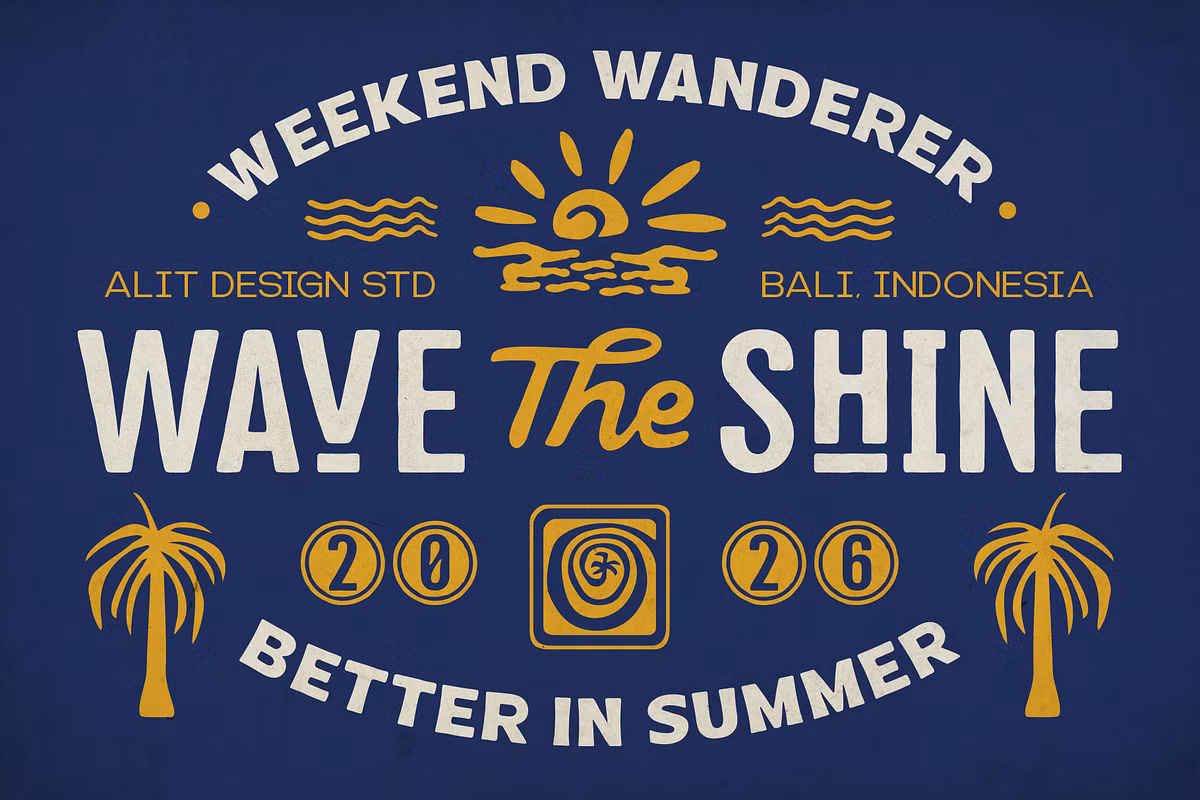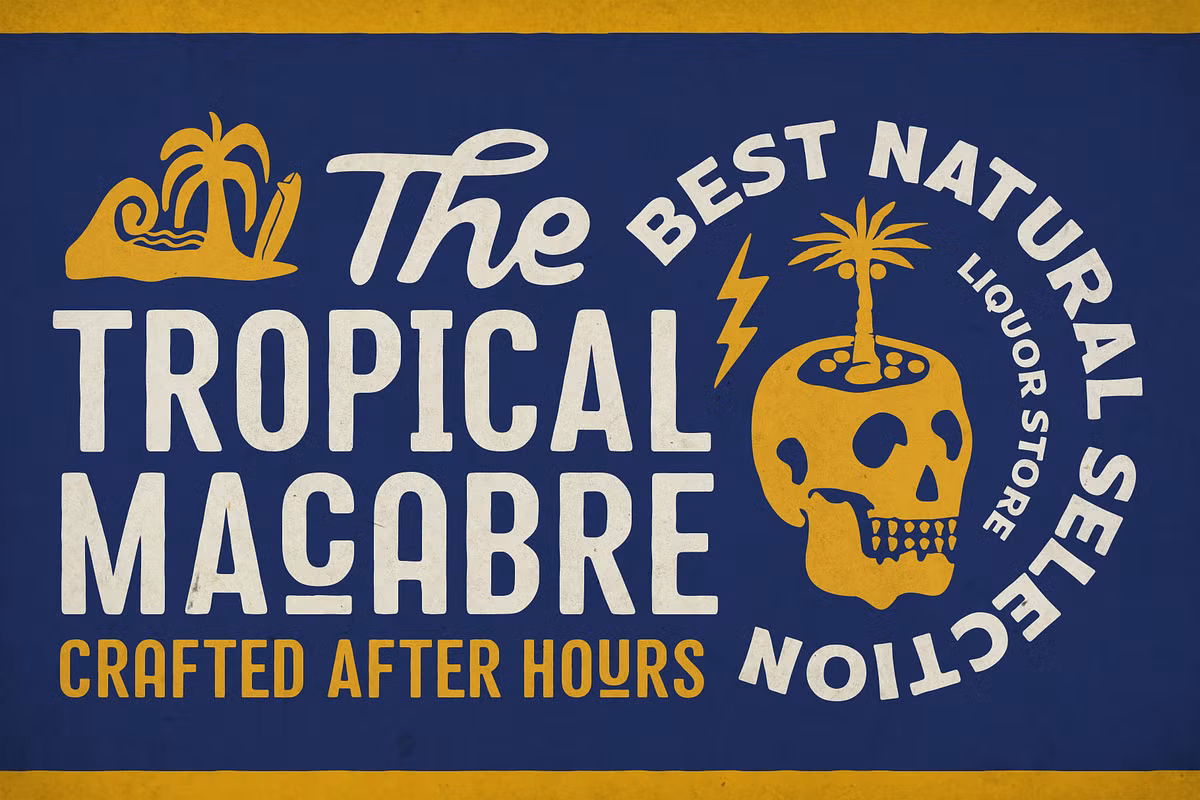
Boneyard Cruiser Typeface: Retro Surf & Skate Font for Creative Design
Boneyard Cruiser Typeface
Boneyard Cruiser Typeface: Retro Surf & Skate Font for Creative Design
Introducing the Boneyard Cruiser Typeface. The Boneyard Cruiser Typeface is a font that looks like the letters you see, on surf boards and skate decks. Alit Design Studio designed the Boneyard Cruiser Typeface. The Boneyard Cruiser Typeface has a hand drawn look and rough edges. The Boneyard Cruiser Typeface feels like a day at the beach. I have used the Boneyard Cruiser Typeface for a flyer, about a surf event. The Boneyard Cruiser Typeface works well for surf and skate projects. I make the badge, for a craft beer. I design the t‑shirt for a streetwear brand. I create the poster, for a beach festival. Boneyard Cruiser gives the real used look that feels like a classic.
Boneyard Cruiser Typeface displayed on surf and skate designs
Boneyard Cruiser Typeface in surf and skate themed designs.
Design Style of Boneyard Cruiser
When I see the Boneyard Cruiser Typeface I think of surf and skate days, from my youth. I love the Boneyard Cruiser Typeface. The Boneyard Cruiser Typeface has a school look that reminds me of those scenes. The Boneyard Cruiser Typeface gives each letter a hand drawn texture that feels natural and imperfect. The Boneyard Cruiser Typeface works well for projects that want to bring back a feeling and a sense of adventure.
The font has three weights: Bold Regular, High Regular and Thin Regular. The three weights let you mix and match styles to build a hierarchy in your designs. I use the Bold Regular weight for headlines because the Bold Regular weight is heavy and strong. I use the High Regular weight when I need a look that fits big messages into tight spaces. I use the Thin weight for subtext and details because the Thin Regular weight stays clean and easy to read.
Character sets and features of Boneyard Cruiser Typeface
Character sets and features of Boneyard Cruiser Typeface.
Character Sets and Features
Boneyard Cruiser offers a character set that includes letters, lowercase letters, numbers and many punctuation marks. Boneyard Cruiser also comes with a big bonus pack that has 83 hand drawn dingbats. The dingbats are pictures such, as skulls, cactuses, palm trees and skateboards. I like Boneyard Cruiser because I can make logos and badges quickly. I do not need any design assets because Boneyard Cruiser gives me everything I need to finish a logo or badge.
The “High Regular” style includes options and catchwords, like The, Of, On and Estd. When I use the “High Regular” style I notice the letters feel like they were drawn by hand. The “High Regular” style gives the typography a hand drawn look. The “High Regular” style uses letter combos such, as CO, FI and FL. The special letter combos make the text flow smooth. The special letter combos add a fun but neat look that fits the Boneyard Cruiser.
Use Cases for Boneyard Cruiser
I have found the Boneyard Cruiser to be versatile. I have used the Boneyard Cruiser in projects. Here are some specific use cases:
• Apparel Design: I find the font works for vintage t-shirts, hoodies and caps. The font adds a touch, to any clothing line. The font feels right.
• Branding: I have seen Boneyard Cruiser work well for the surf shops. I have also seen Boneyard Cruiser work for the skate parks the coffee roasters and the barbershops. Boneyard Cruiser can help you build a brand identity that connects with the target audience.
• Event Graphics: Use this typeface for music festival posters and party invitations to capture the fun, laid-back vibe of your events.
• Packaging: I think packaging gives the label designs an organic look. I use packaging, for craft beers, artisan products and more.
Boneyard Cruiser Typeface used in apparel and branding
Boneyard Cruiser Typeface in apparel and branding examples.
Improve the Boneyard Cruiser Typeface in your designs by pairing the Boneyard Cruiser Typeface with fonts. For headings pair the Bold Regular weight of the Boneyard Cruiser Typeface, with a sans serif font. Try Montserrat or Open Sans for a contrast. For body text pair the Thin weight of the Boneyard Cruiser Typeface, with a serif font. Try Playfair Display. The serif font adds a look. Makes reading easy.
Pair the slab serif Roboto Slab with the High Regular weight to get a base. The slab serif Roboto Slab and the High Regular weight together create a design that catches the eye and feels cohesive. Experiment, with the slab serif Roboto. The High Regular weight to improve your projects and make your typography stand out.
When I buy Boneyard Cruiser I get all three weights—Bold, High and Thin. I also get the dingbats pack. Boneyard Cruiser lets me make designs that catch the eye and get my message across.
Boneyard Cruiser Typeface in various design formats.
I have tried the Boneyard Cruiser typeface and the Boneyard Cruiser typeface feels like a surf ride. If you want adventure and nostalgia, in your projects you can use the Boneyard Cruiser typeface. The Boneyard Cruiser typeface is a style surf and skate font. The Boneyard Cruiser typeface lets you capture the feel of a time. The Boneyard Cruiser typeface gives you weights and hand drawn textures. The Boneyard Cruiser typeface also gives you characters. The Boneyard Cruiser typeface works well for clothing design, logo work and more. I love using my imagination with the help of Boneyard Cruiser. I download Boneyard Cruiser. Boneyard Cruiser lets me make designs that people notice. You can download Boneyard Cruiser. Start making designs that people notice.